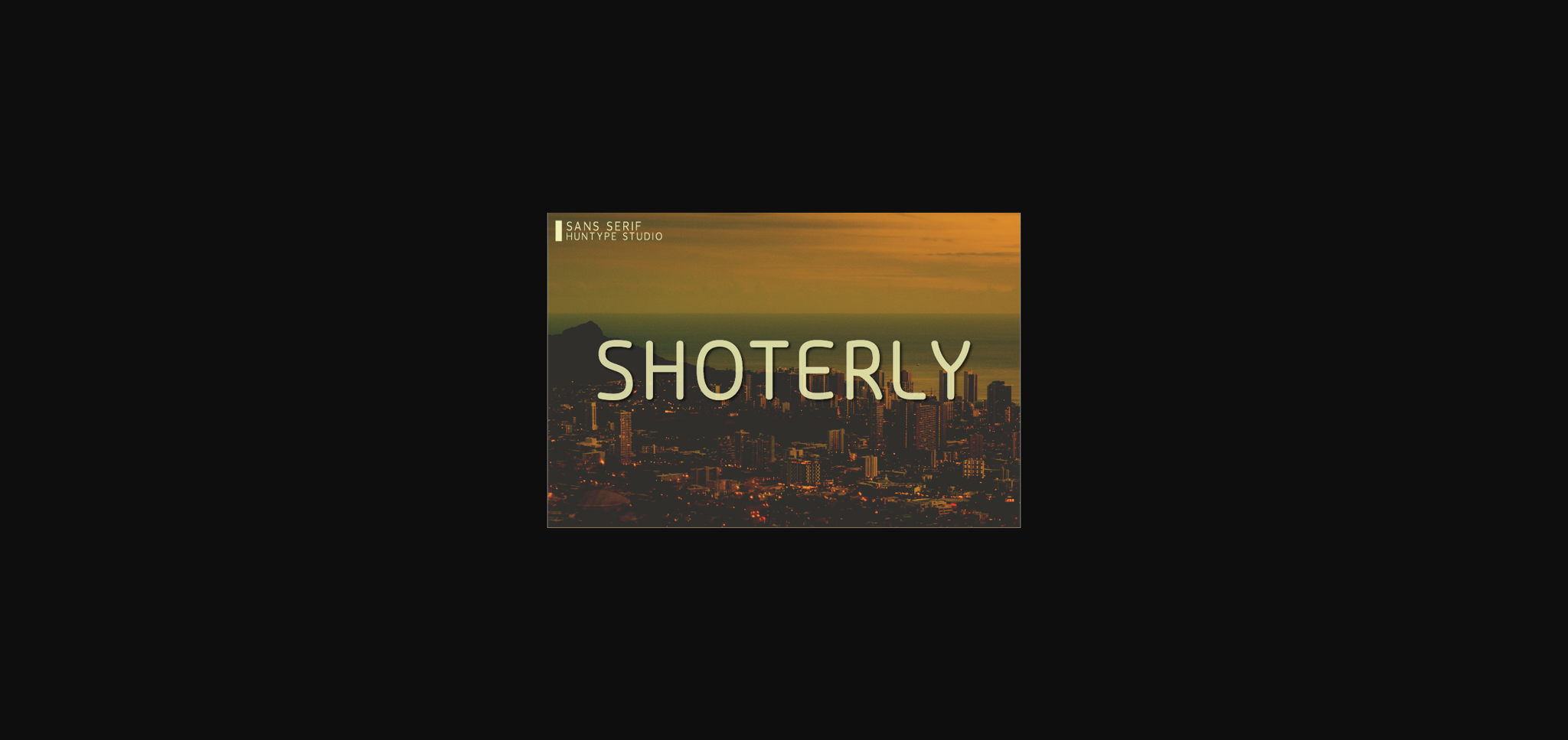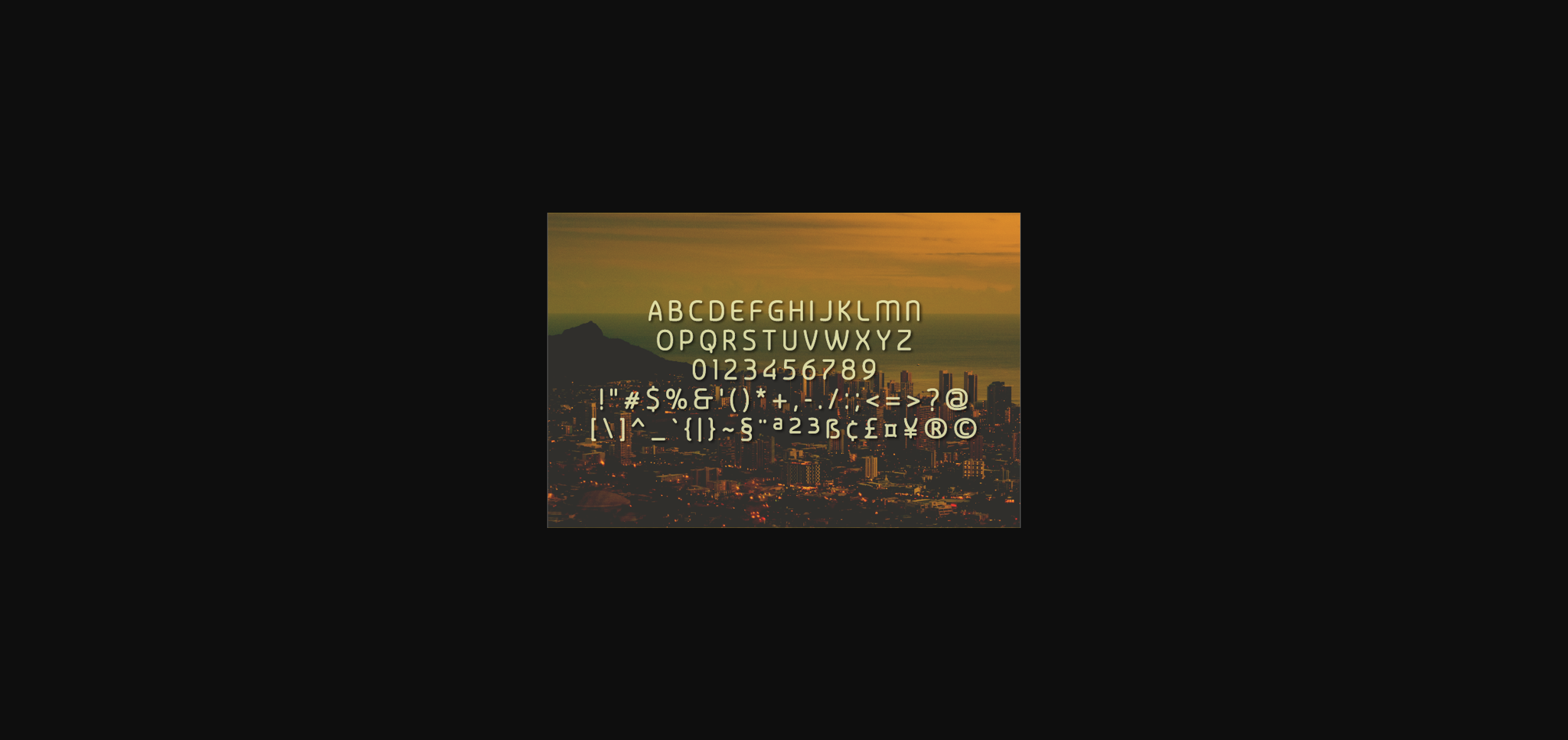
Shoterly is a simple and authentic sans serif font. It has a clean, thin and smooth vibe and it will be a hit for any design that you want to add it to.